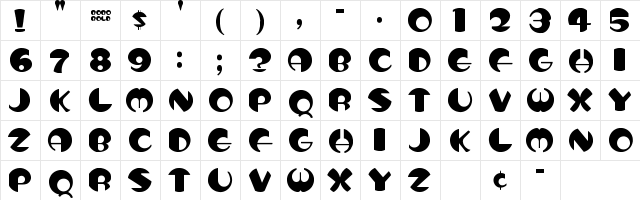
DXS Bobo Bold
Design Context for DXS Bobo Typeface
DXS Bobo is a composed and adaptable typeface that performs quietly and consistently across a wide range of design contexts. The heavy weight commands attention and anchors typographic hierarchies.